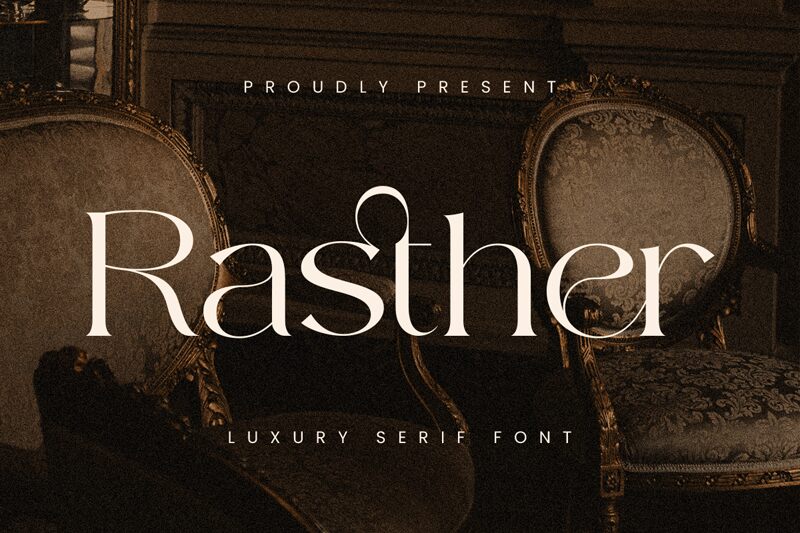
Rasther font family by ToniStudio includes 2 fonts. Its serifs give it a neat finish and a lively character that, in turn, makes it more powerful in titles, headings, and subheadings. A free font family, Rasther takes you back in time with its classic style that reminds of old books and newspapers. Rasther is easy to read so it can be used even for body text, although you have to be careful with its expressive character.
Create charming projects on Adobe Photoshop and Illustrator for online platforms and print, and even text your web designs. Use Rasther in magazines and books. Design prominent headlines and covers. Use it in branding, logos, and other identity applications. Produce packaging designs for biscuits, candy, and tea. Promote your bakery or event hire business, and engage your customers. Add a vintage touch to any digital design and satisfy that craving for something nostalgic.